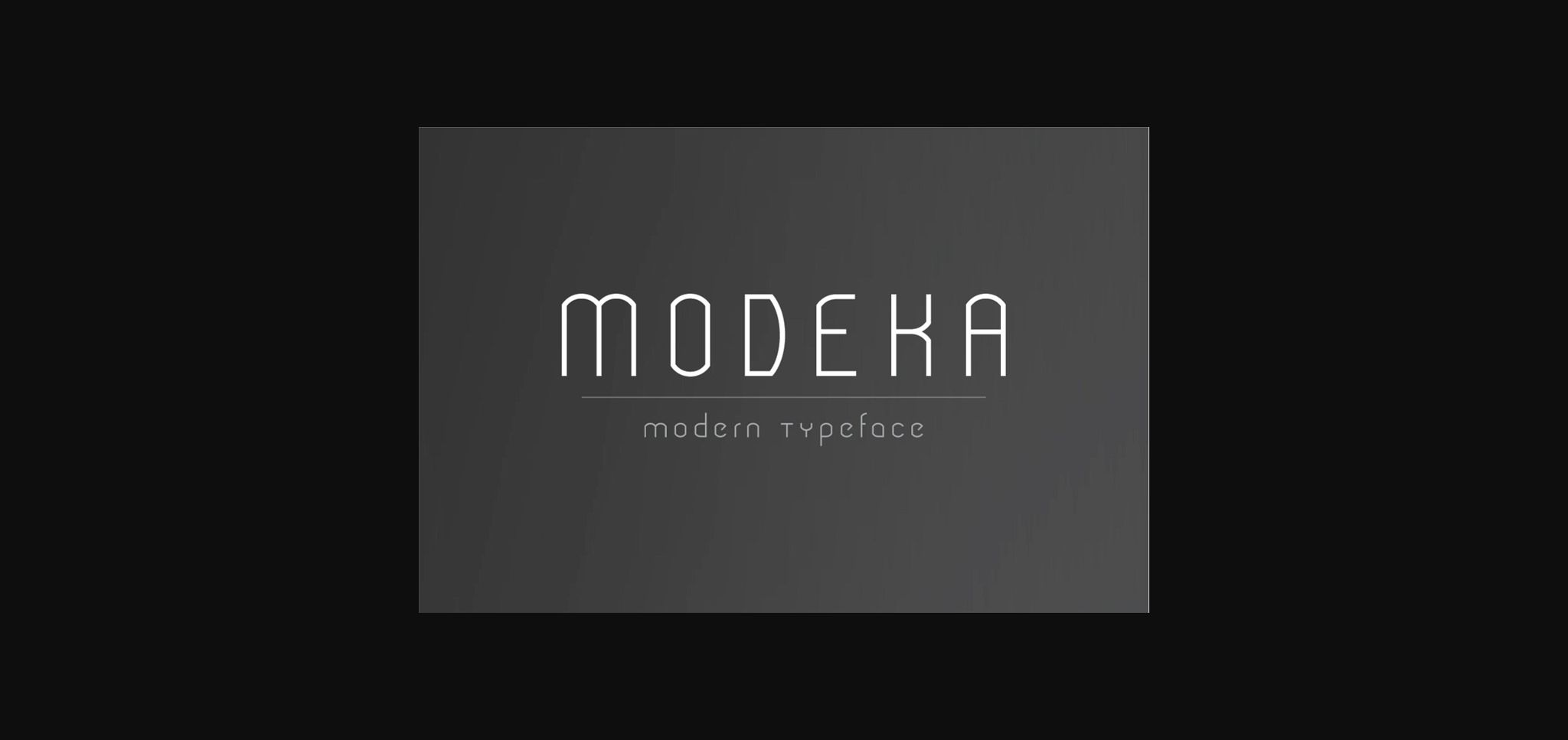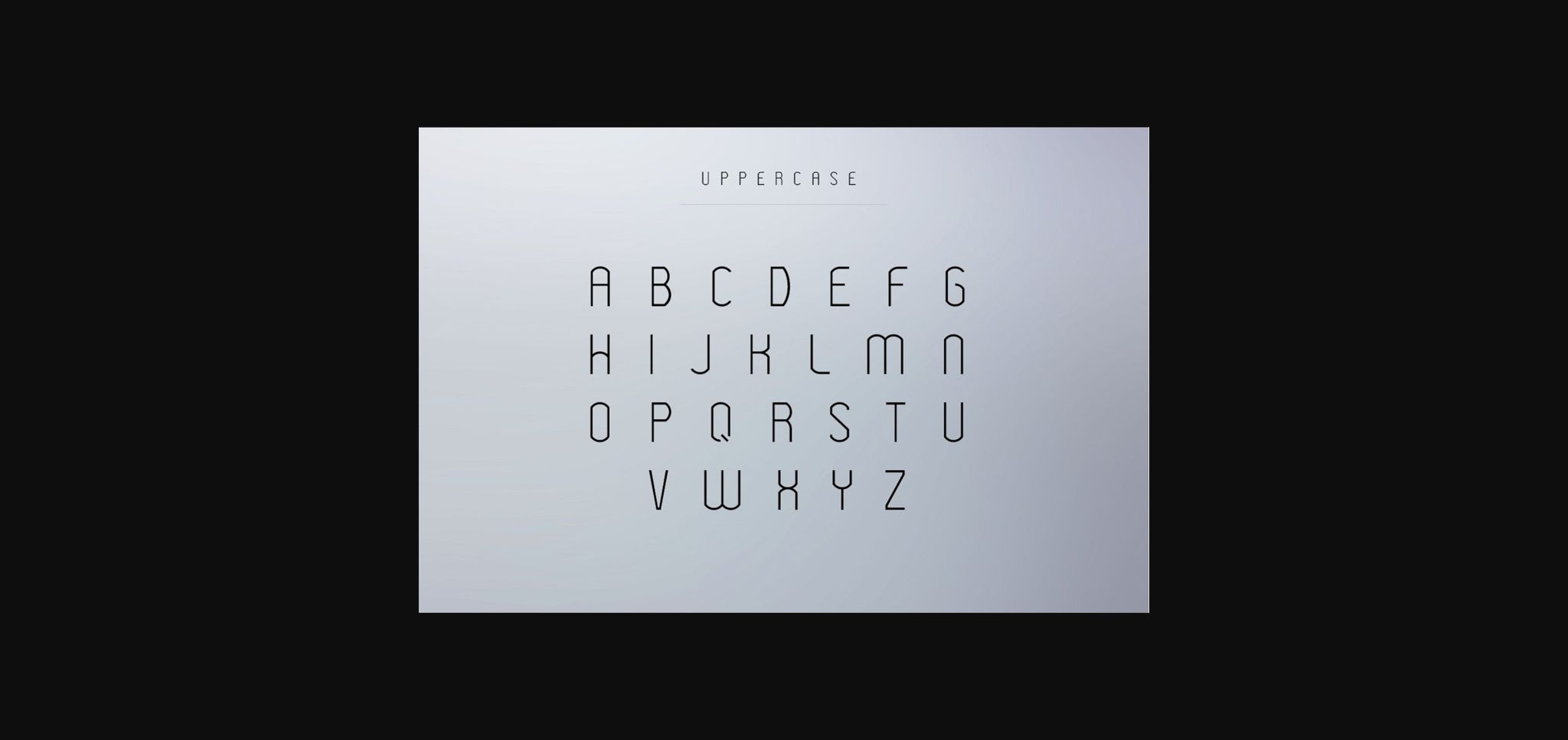
About Modeka Font
Modeka is a simple and casual sans serif font with an undeniably clean feel. With its neat and beautiful arrangement of letters, this typeface will look outstanding in both formal and non-formal designs.